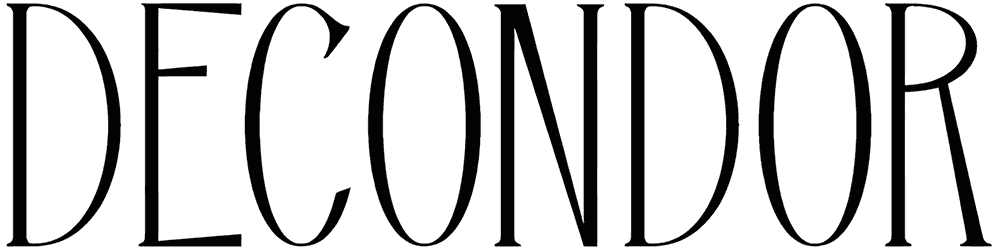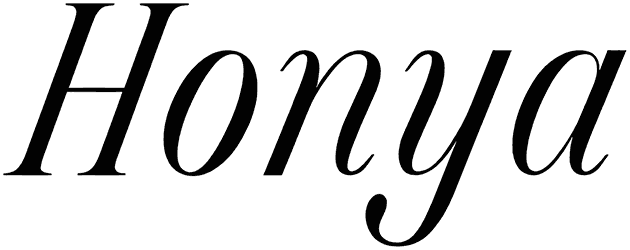
Westlake Font
If you are creating a logo of a reputable brand or sending out a newsletter, a serif font with its white-collar and pressing appearance can be the best option for you. Westlake is a flexible font with clear and legible letters that do not include numbers. However, it is a powerful choice for any design and can suit any taste.
Westlake is a serif font. Made for any professional project branding. It is the best for logos, branding and quotes. Every letter has a unique and beautiful touch.
• Ligatures
• Stylistic Sets
• Swashes
• Multilingual Supports
• Numerals and Punctuations